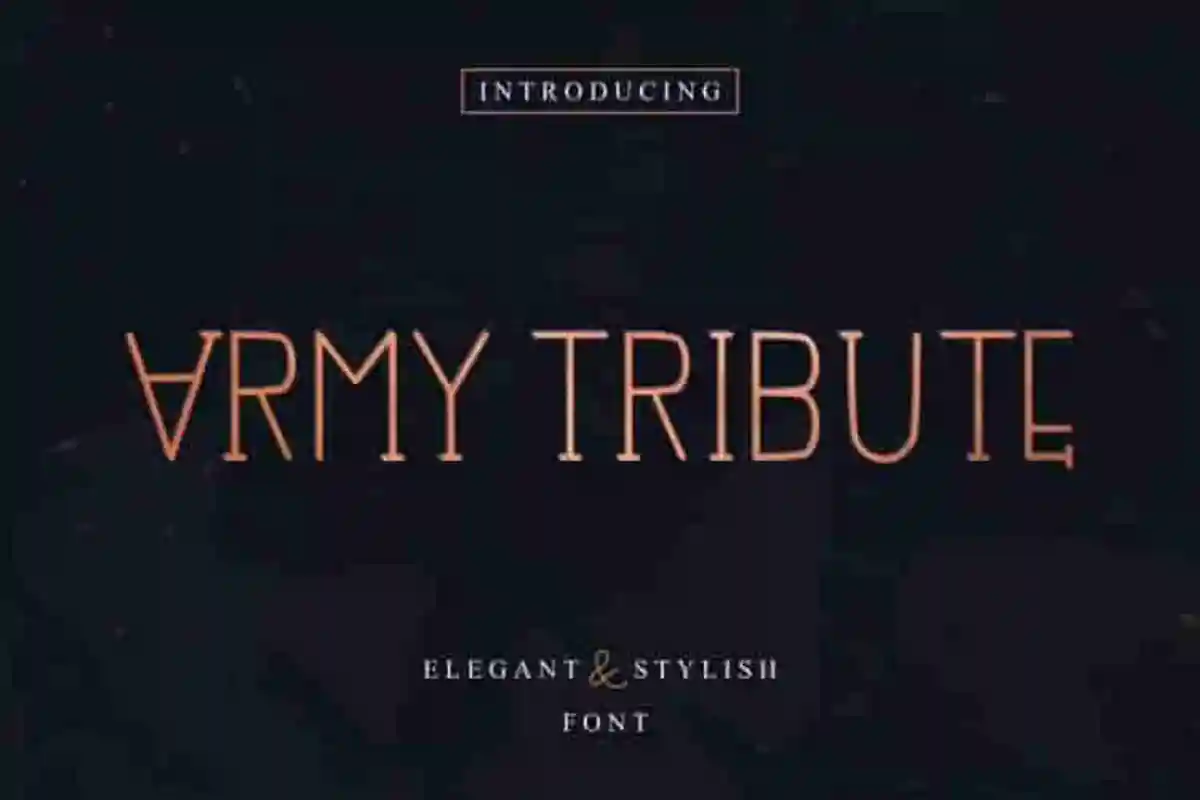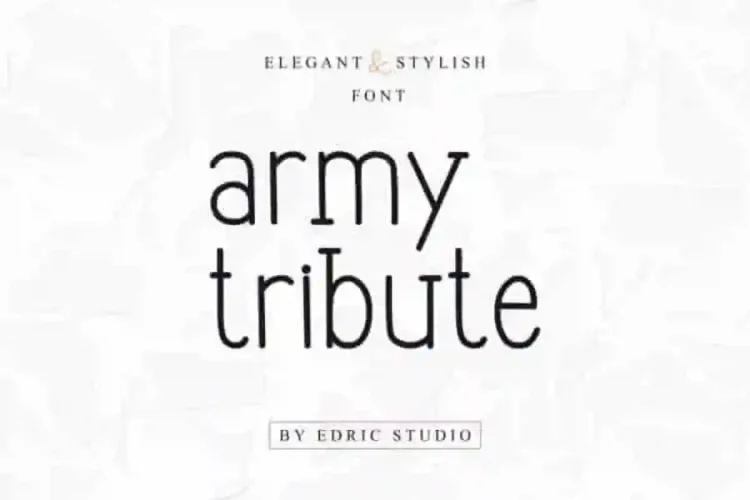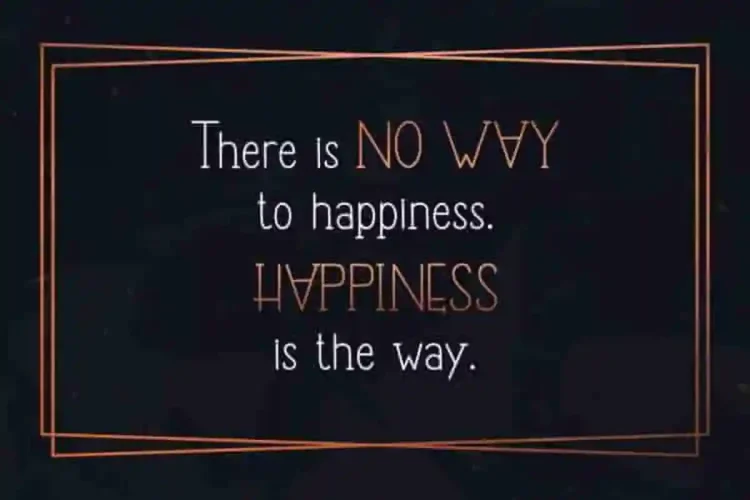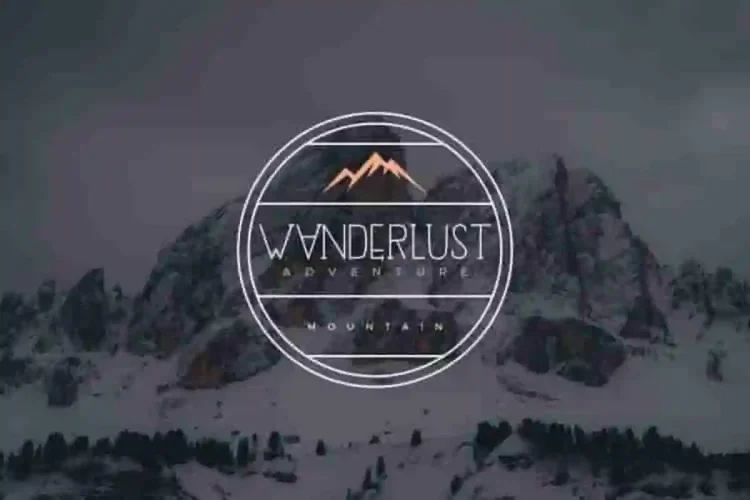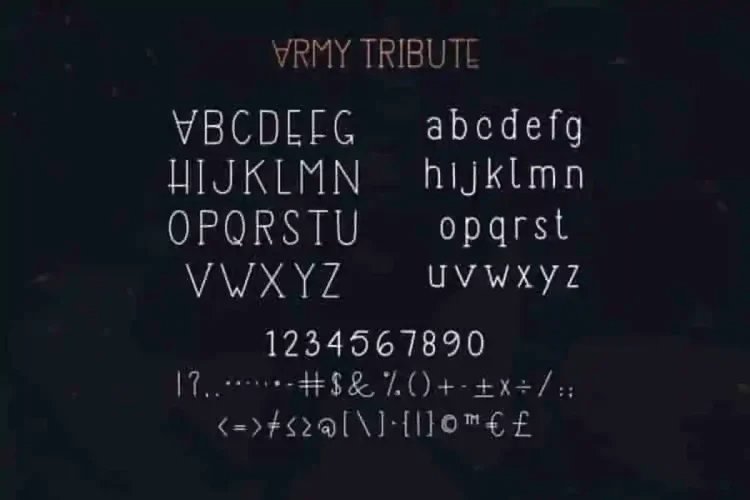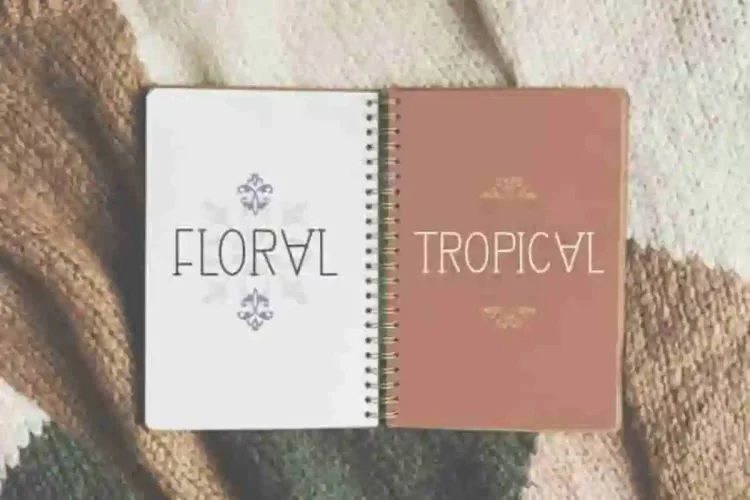
Army Tribute Display Sans Serif Font
The newest font from our lovely artist : Army Tribute Display Sans Serif Font
This is a display font, handcrafted from our Studio here in, Indonesia. The artists/designers of this beautiful tyeface is Saila and Suci.
Army Tribute Display Sans Serif Font is an exclusive sans serif for display purpose. This font has a stunning characters set, perfectly managed with well spaced and kerning.